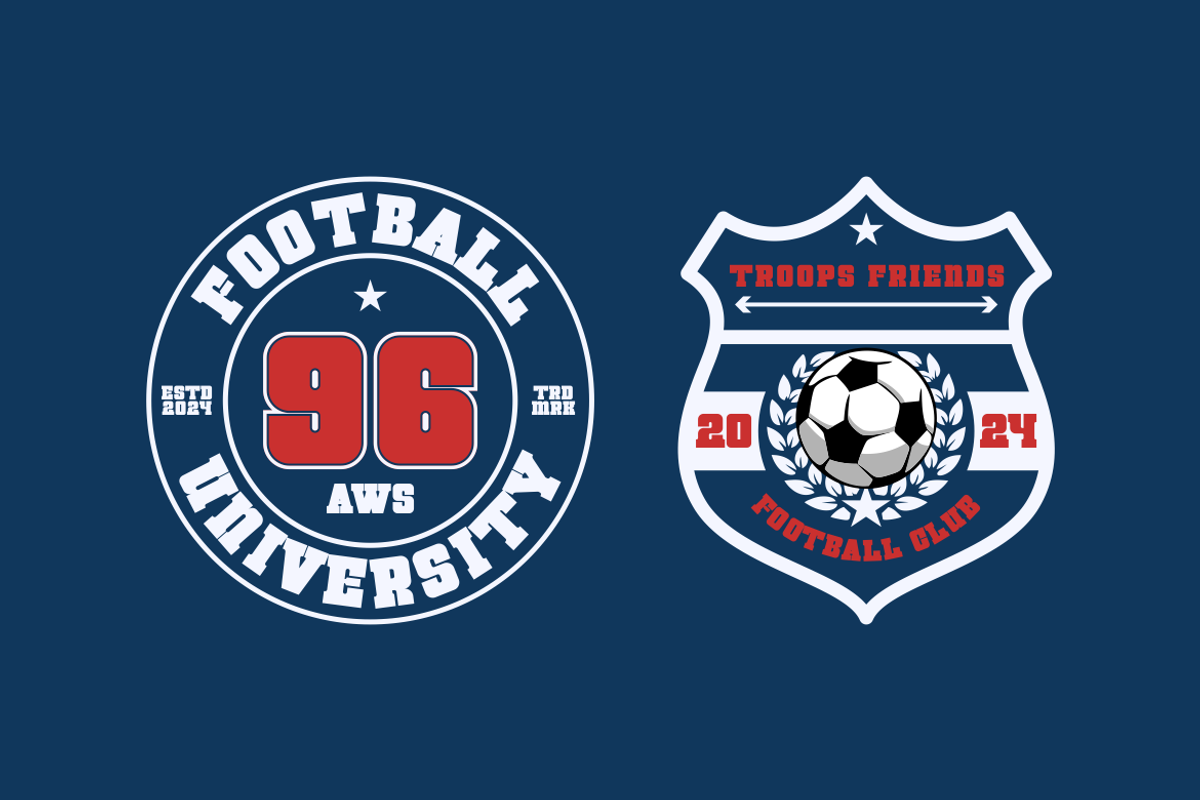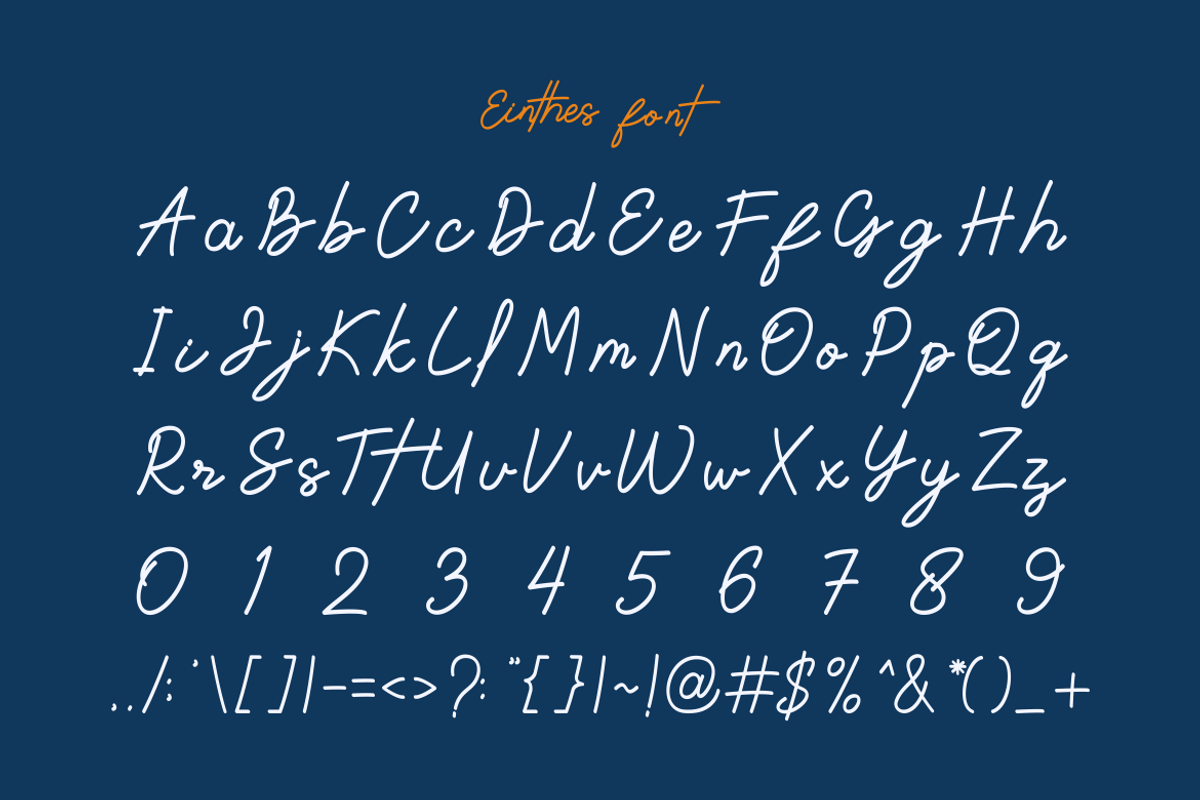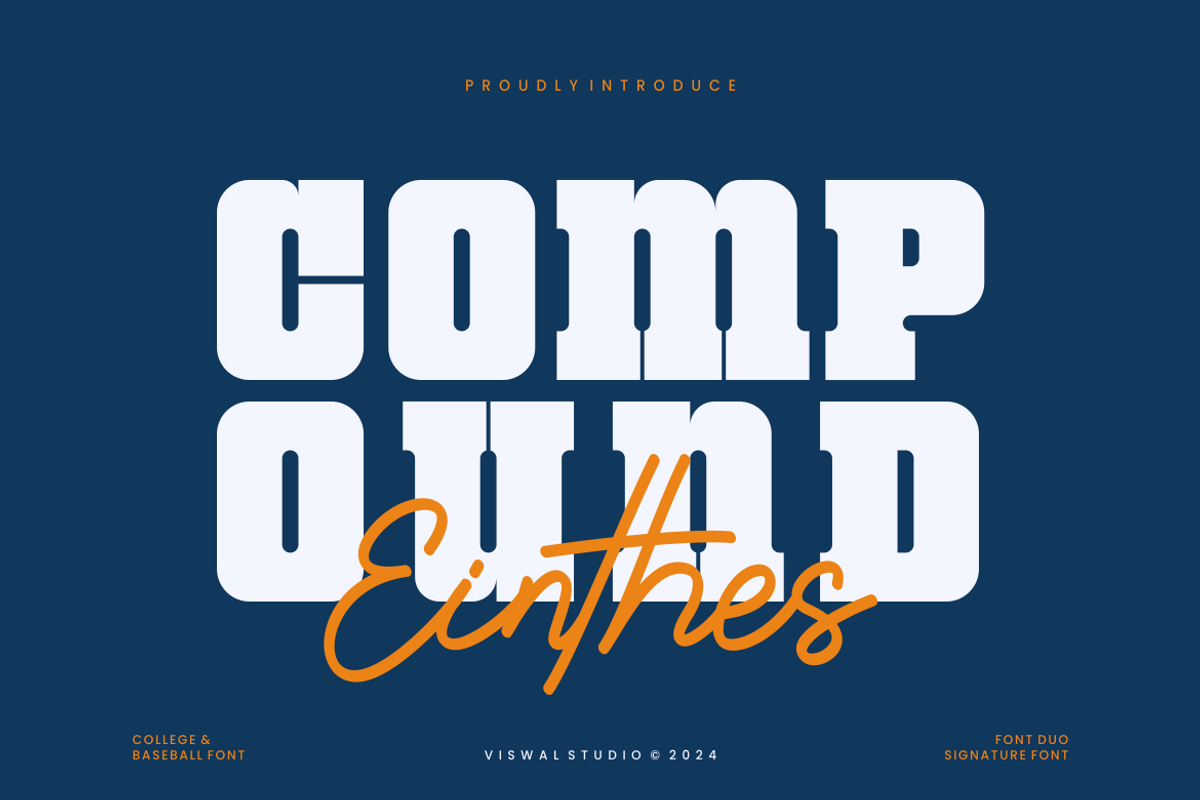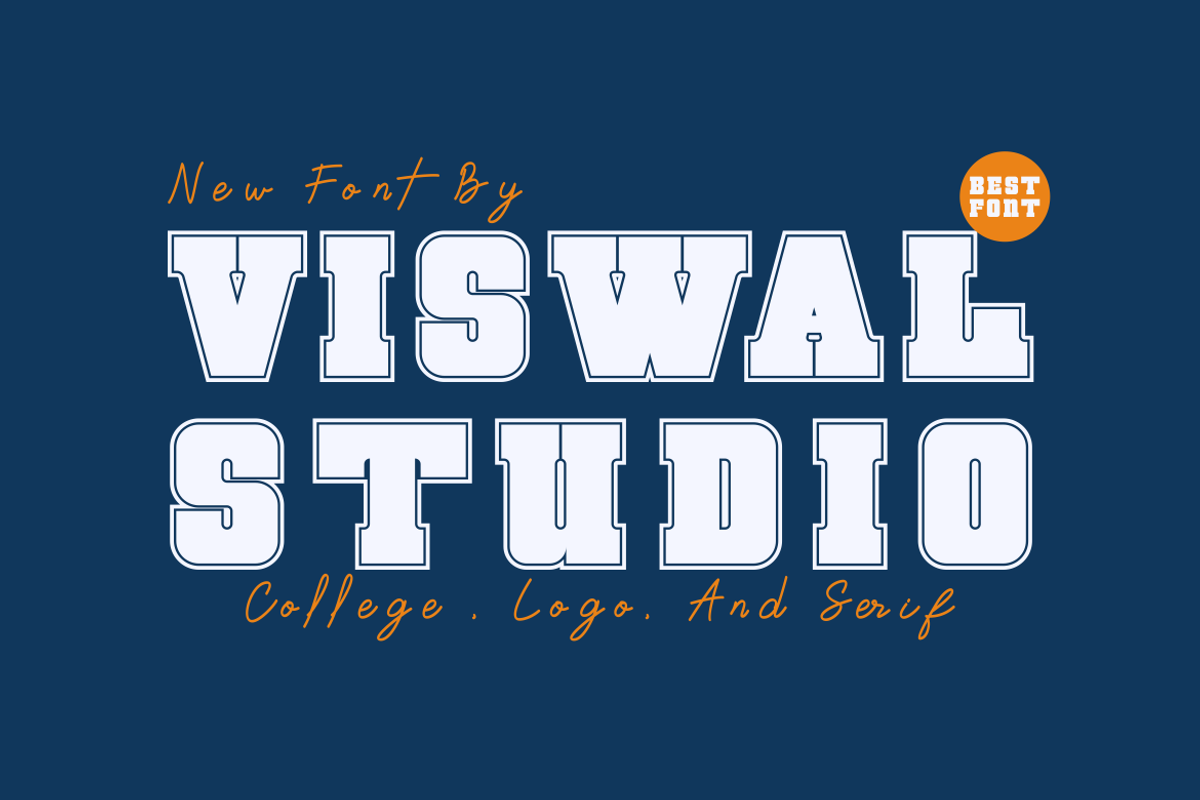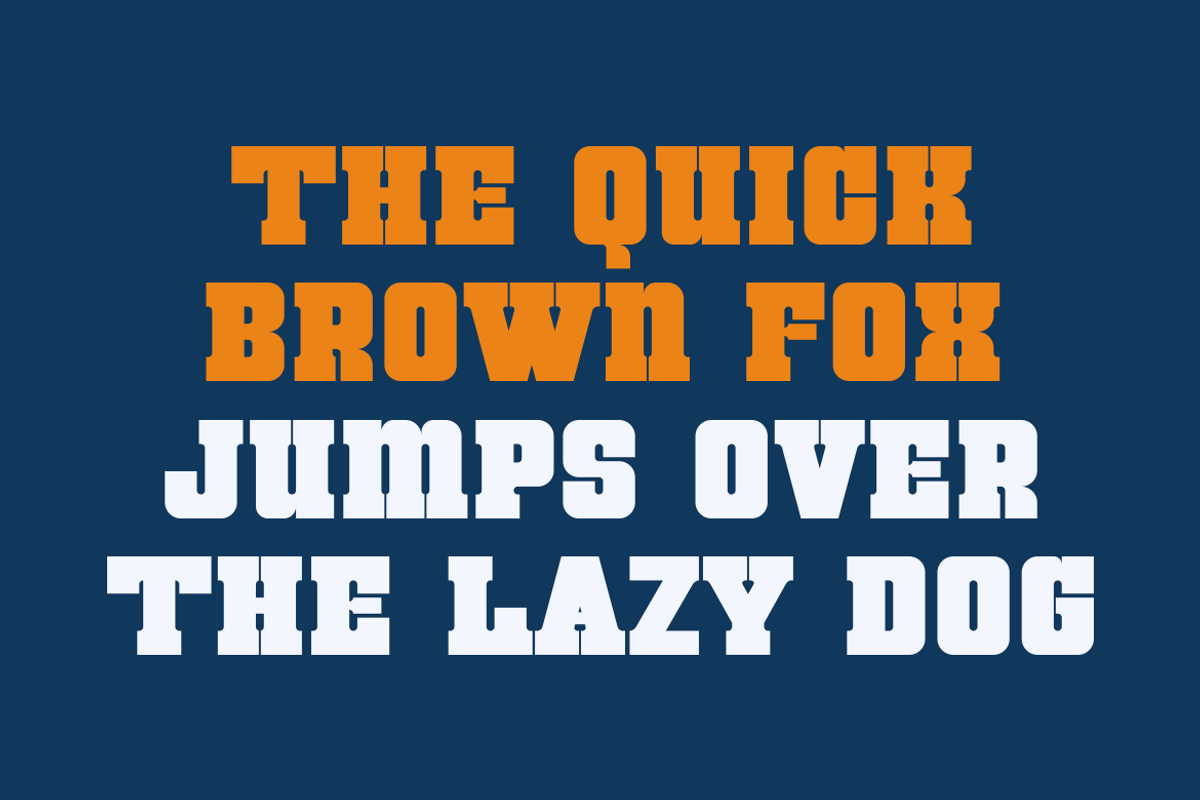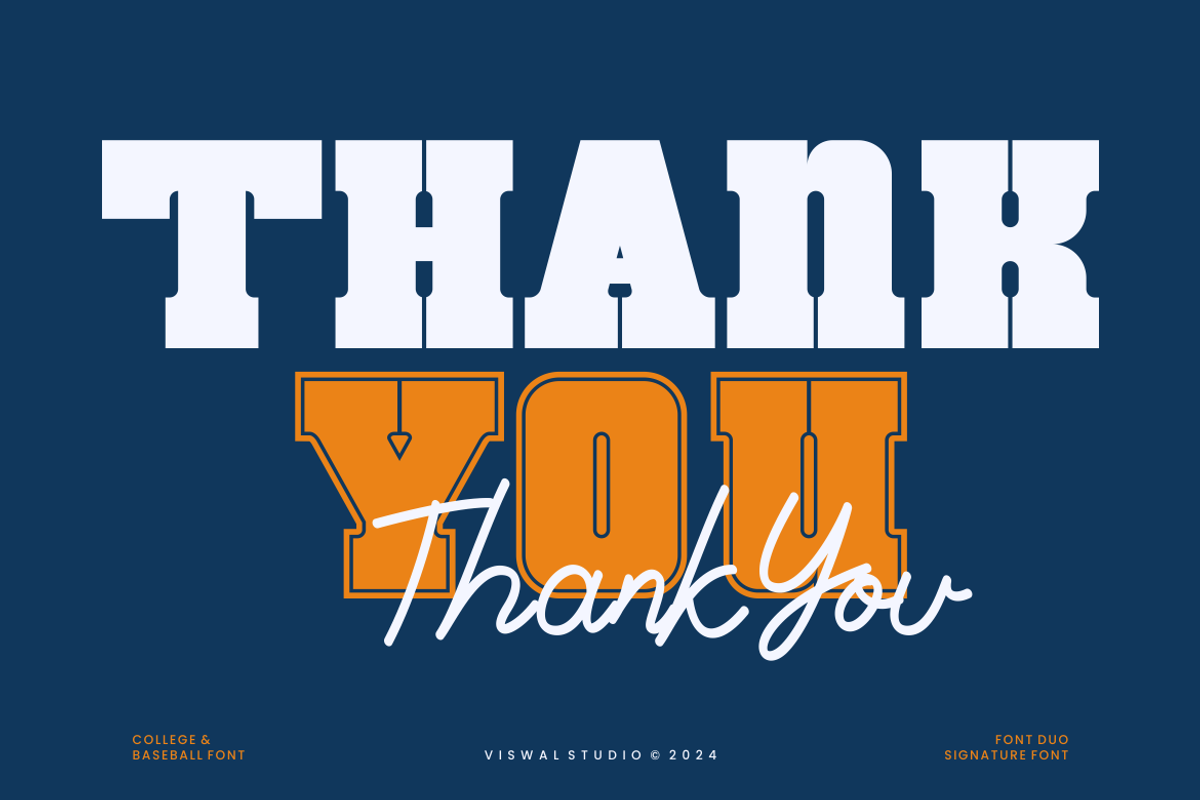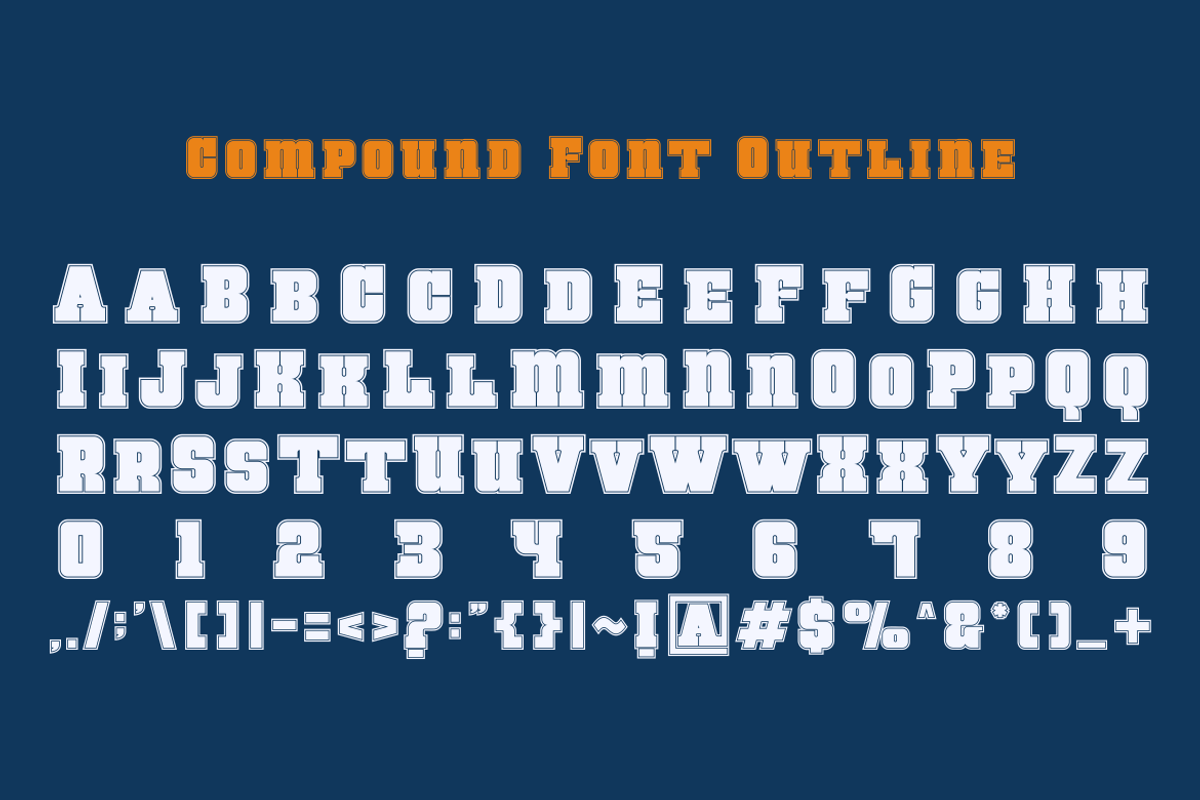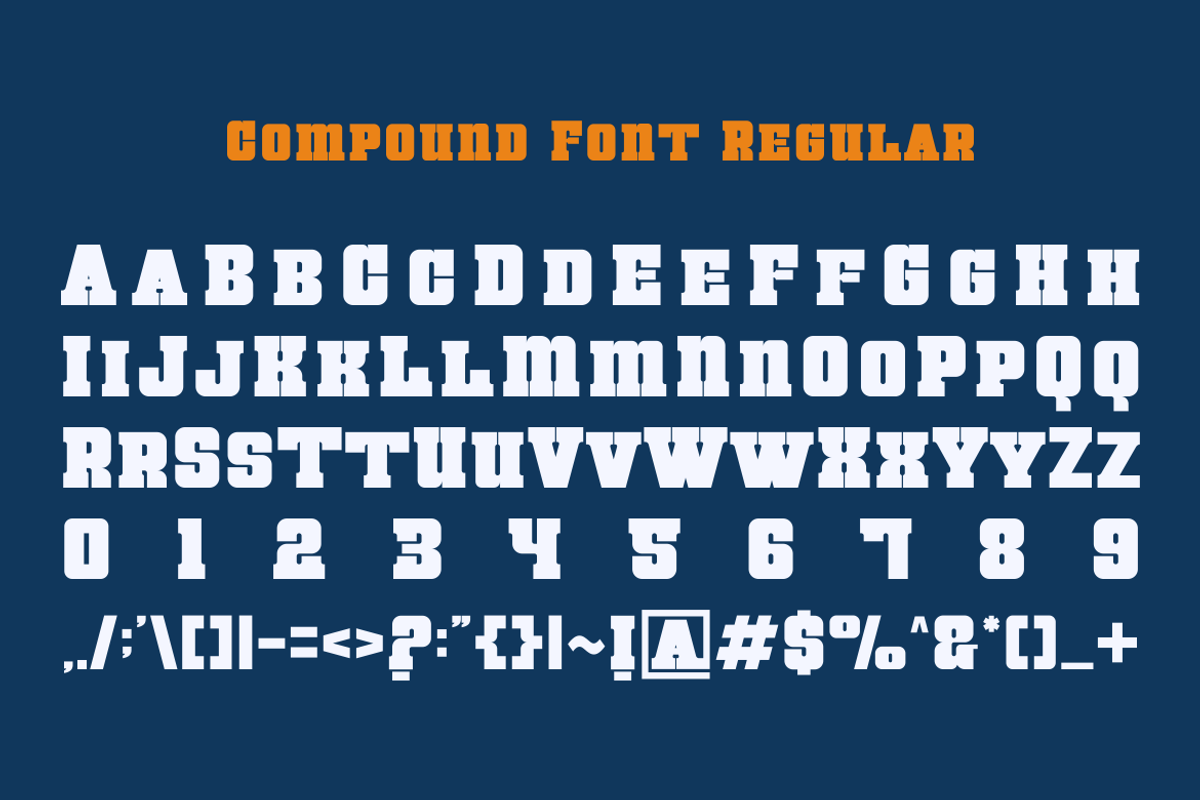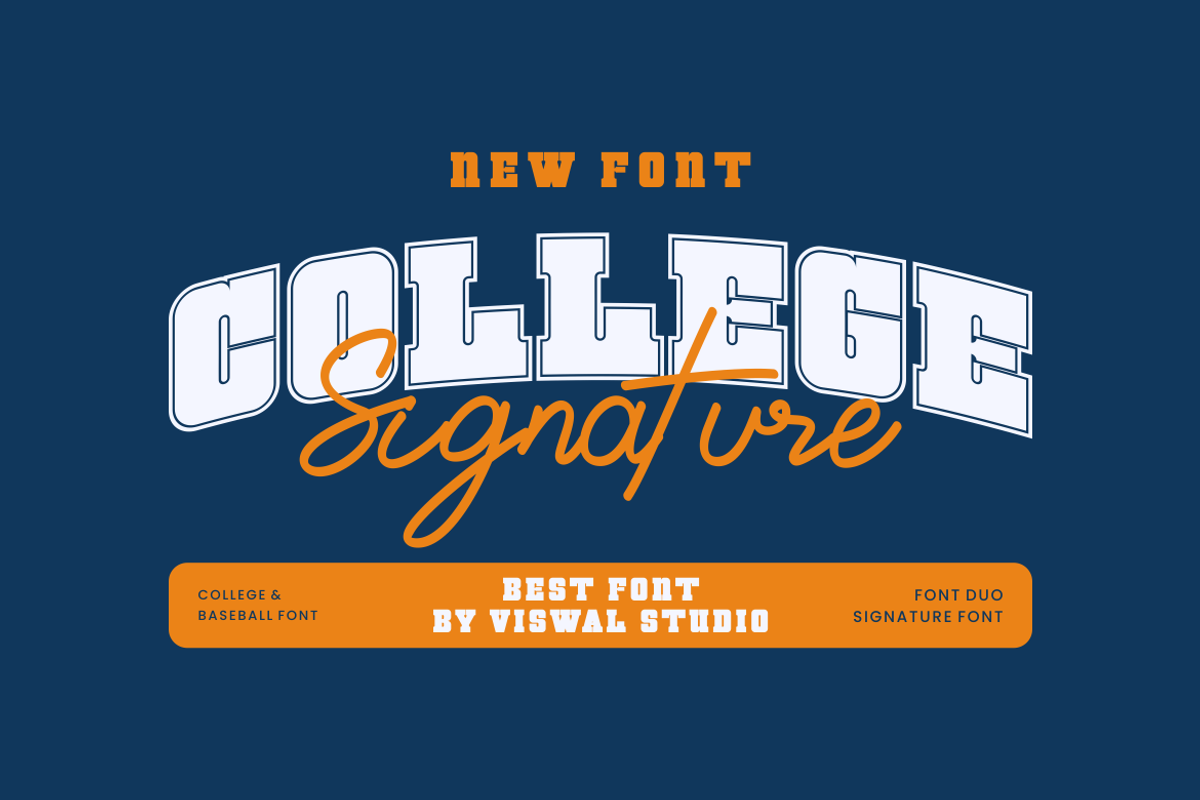
Compound Einthes - Modern Duo Font
Presenting Compound Einthes Is A Modern Duo Font
Can Make It Easier To Convey The Message In Your Design. Font Is Suitable For Logo, Labels, Badge, Branding, Magazine, Poster, Title, Gigs, Covers And Etc. Our Fonts Have Uppercase & Lowercase, Numeral & Punctuation, And Opentype Features. For Amazing Designs You Can Mix With Other Fonts As A Complement.